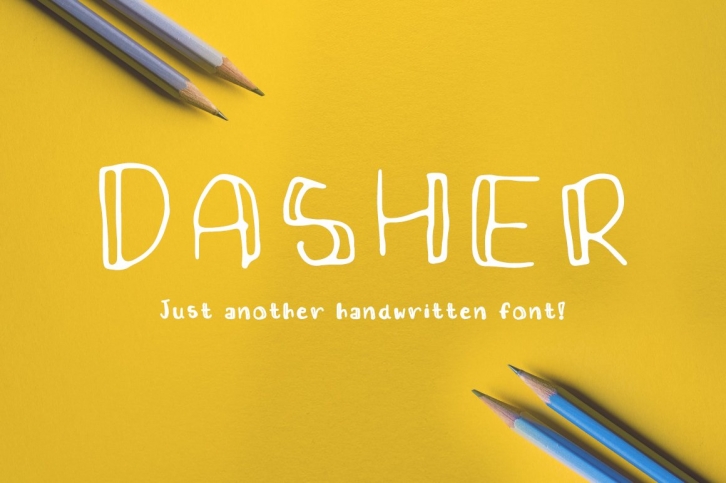
I needed something fun and young to work with, so I created this cute font using an iPad Pro and Pencil. Hope it comes in handy for your projects too.